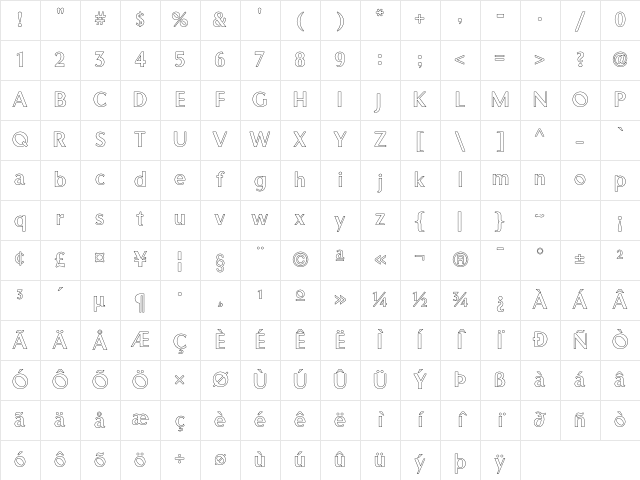
RubinoSansICG Out
Style: Out
RubinoSansICG Family
RubinoSansICG Out
Design Context for RubinoSansICG
RubinoSansICG is a composed and adaptable typeface that performs quietly and consistently across a wide range of design contexts.
Pro Tip: Use RubinoSansICG in both headline and body roles to test its range before committing to a single application.